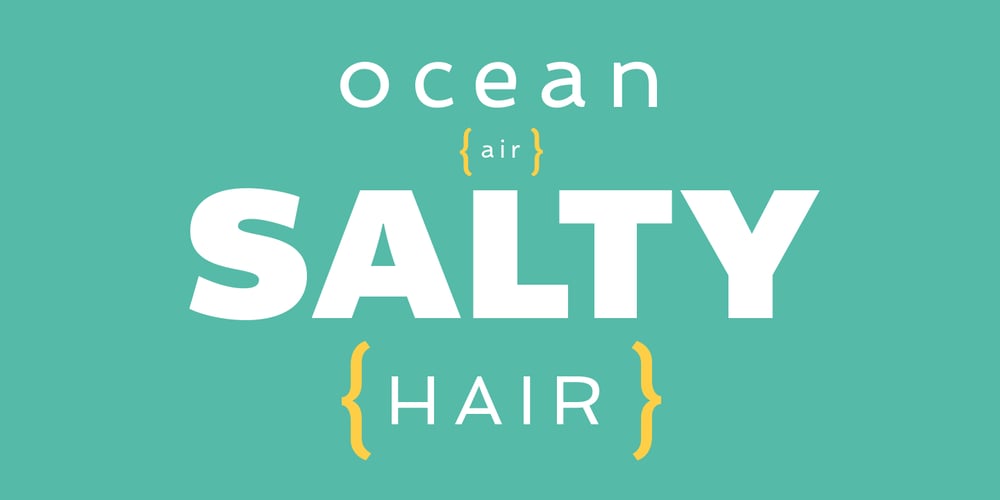
Vidal Font Family was designed by Elena Albertoni and published by Groupe Dejour. Vidal contains 3 styles and family package options. The Vidal is a display typeface designed in 2016 by Elena Albertoni. It comes in three styles: Regular, Bold and Black. This wide sans-serif with low contrast is inspired by French and British Art Deco lettering and it is suitable for use in medium to large sizes, where it offers good legibility and all its friskiness. The attitude of Vidal when set in all caps derives from the models that inspired the design: mainly capital-only lettering pieces; the essential addition of lowercase letters distinguishes Vidal from similar revivals and makes it a great modern choice.